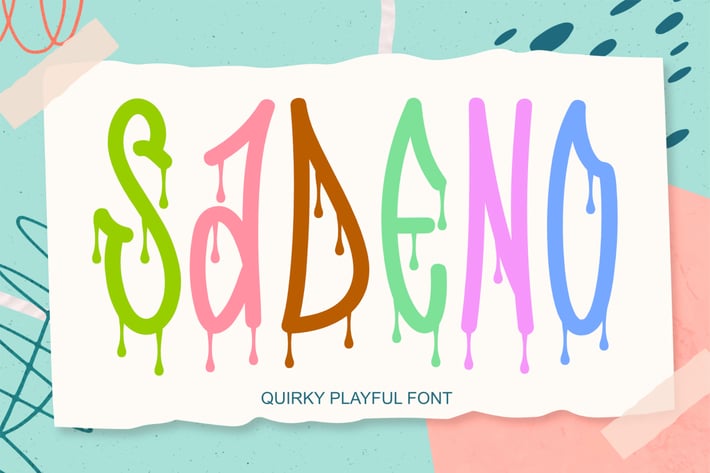
Sadeno |Quirky Playful Font
Introducing our quirky playful font, designed to add a whimsical touch to your projects. This font is perfect for creating eye-catching headlines, fun packaging, cheerful greeting cards, and more. With its playful curves and unique character shapes, this font is sure to bring a smile to your audience. Let your creativity run wild and bring a sense of fun to your designs with our quirky playful font.